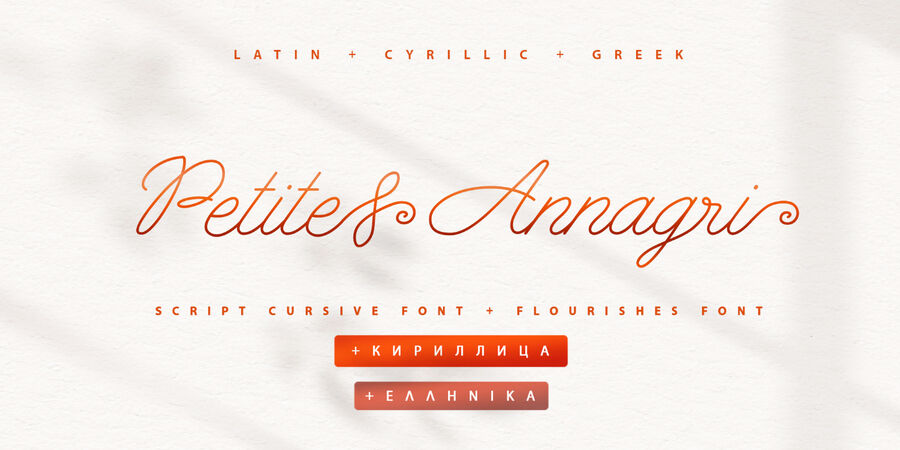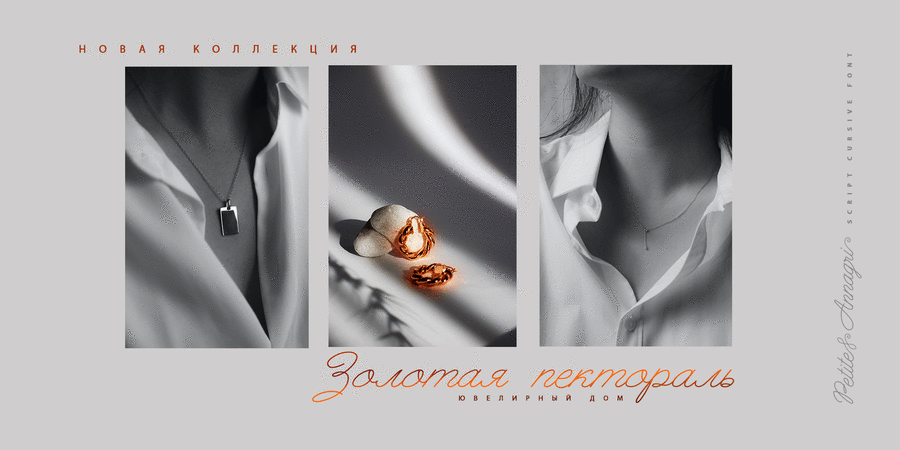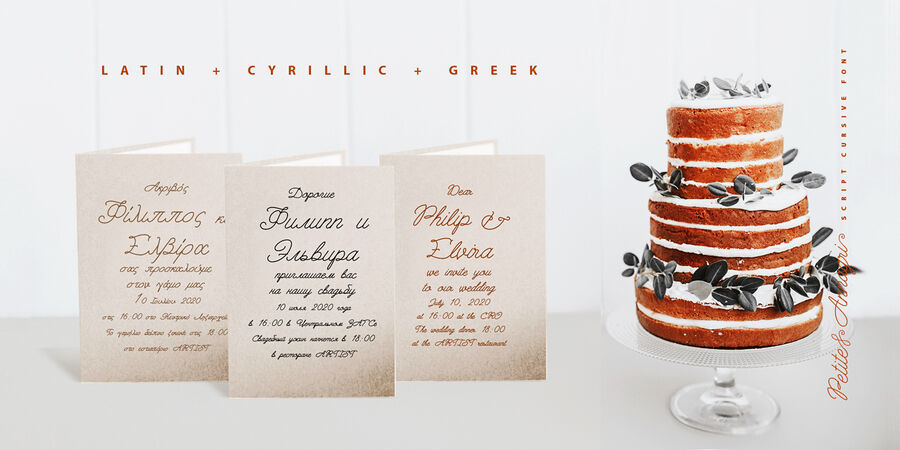
About Petite Annagri CyrillicPetite Annagri font pair with Latic, Cyrillic and Greek + symbolic will help you create exquisite designs for wedding invitations, monoline logos with swashes and monograms, love letters, Instagram quotes, business cards, packaging.
Petite Annagri Cyrillic Script includes a set of uppercase and lowercase letters, numbers and a large range of punctuation marks. Petite Annagri symbols contains over 36 monoline swirls, strokes and swashes, elements, illustrations to make your design more original. To select the desired element, see the glyph table.
Multilingual support for 33 Latin languages, Cyrillic support for Ukrainian, Russian, Belarussian, Bulgarian, Kazakh, and Greek language.
The typeface was designed by Iryna Dvilyuk in 2021.